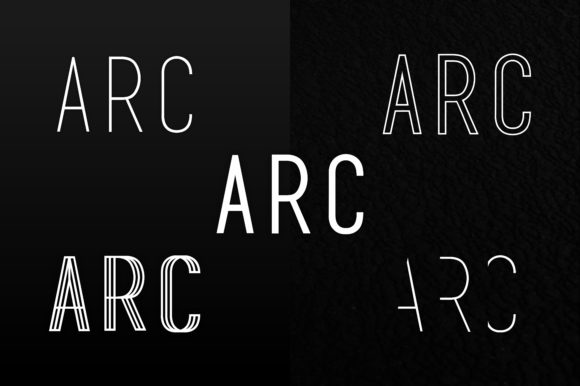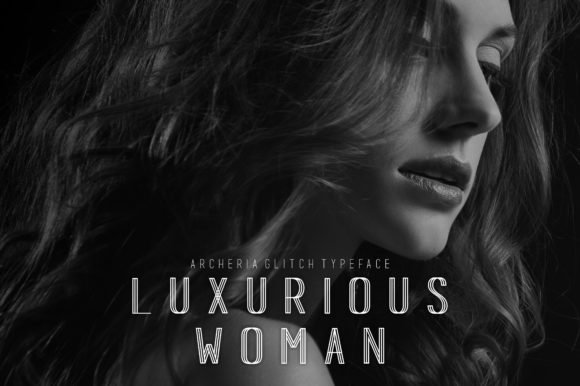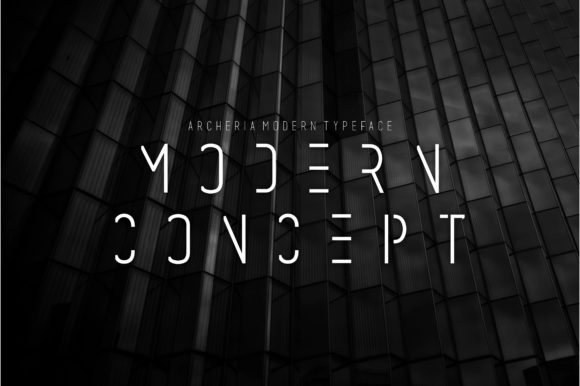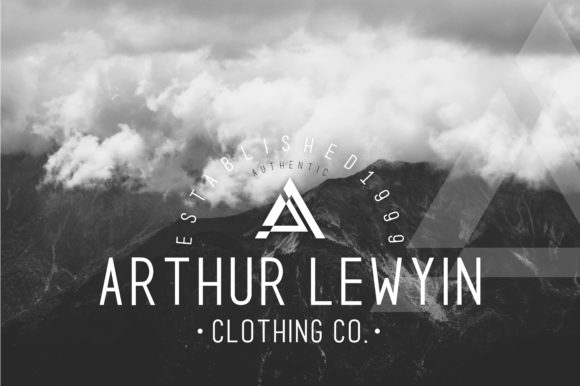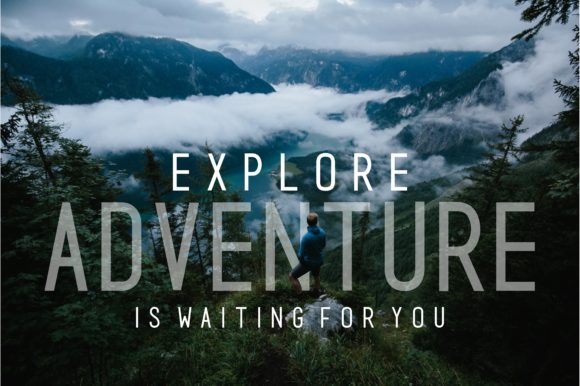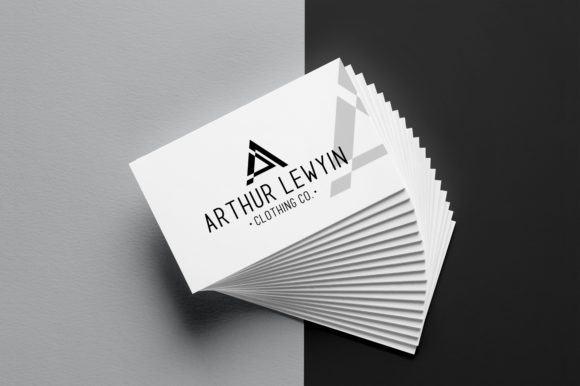
Introducing Archeria Font: Elevate Your Designs with Elegance and Modernity
In the world of typography, fonts play a crucial role in defining the visual identity of a design project. Whether you’re a seasoned designer or a crafty DIY enthusiast, selecting the right font can make all the difference. If you’re on the hunt for a font that exudes elegance, sophistication, and a touch of modernity, look no further than Archeria Font. This stunning sans serif font is about to become your go-to choice for adding a unique charm to any design project.
What is Archeria Font?
Archeria Font is a beautifully crafted sans serif font that boasts a sleek, modern aesthetic. Its clean lines, precise curves, and balanced proportions make it an excellent choice for a wide range of design applications. From branding and advertising to packaging and digital media, Archeria Font is versatile enough to adapt to any project’s needs.
Key Features of Archeria Font
- Elegant and Sophisticated: Archeria Font’s refined design lends an air of sophistication to any project, making it perfect for high-end brands, luxury products, and creative endeavors.
- Modern Feel: The font’s modern sans serif style ensures that your designs look fresh, contemporary, and visually appealing.
- Versatile: Archeria Font can be used for various design projects, including headings, titles, and body text.
- Unique Charm: The font’s distinctive character set and stylish curves add a touch of personality to your designs, setting them apart from the crowd.
Why Choose Archeria Font?
With so many fonts available, why should you choose Archeria Font for your next project? Here are a few compelling reasons:
- Stand Out from the Crowd: Archeria Font’s unique design ensures that your projects will stand out in a sea of sameness.
- Enhance Brand Identity: The font’s elegant and modern style can help elevate your brand’s visual identity and create a lasting impression.
- Easy to Read: Archeria Font’s clear and legible design makes it perfect for body text, ensuring that your message is conveyed effectively.
- Time-Saving: With Archeria Font, you can achieve professional-looking results without spending hours searching for the perfect font.
How to Use Archeria Font in Your Designs
Archeria Font is incredibly easy to use and can be incorporated into your designs in a variety of ways:
- Pair it with Other Fonts: Experiment with combining Archeria Font with other fonts to create visually appealing contrast and hierarchy.
- Use it for Headings and Titles: Archeria Font’s elegant design makes it perfect for headings, titles, and other display text.
- Apply it to Digital Media: Use Archeria Font in your website designs, social media graphics, and digital advertisements to add a touch of sophistication.
Tips and Tricks for Getting the Most out of Archeria Font
To maximize the impact of Archeria Font, keep the following tips in mind:
- Experiment with Font Sizes: Play around with different font sizes to create visual hierarchy and emphasize key elements.
- Adjust Letter Spacing: Fine-tune letter spacing to achieve the perfect balance of elegance and readability.
- Try Different Colors: Archeria Font looks stunning in a range of colors, so don’t be afraid to experiment and find the perfect hue.
Archeria Font is an exceptional sans serif font that brings a unique blend of elegance, sophistication, and modernity to any design project. With its versatile design, easy readability, and distinctive charm, it’s the perfect choice for designers and crafters looking to elevate their work. Whether you’re creating branding materials, digital media, or craft projects, Archeria Font is sure to become your new favorite go-to font.